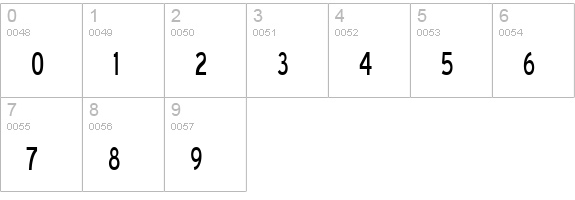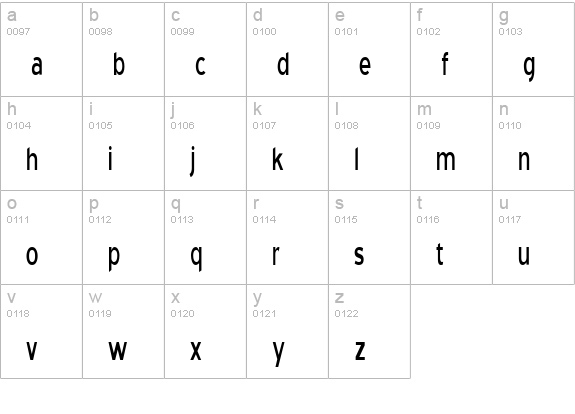
Blue Highway Condensed Font Details
Blue Highway Condensed is a distinctive, condensed-width variant in the Blue typeface family \xE2\x80\x94 well suited to design and typography projects.
Blue Highway Condensed is a sleek and modern sans-serif font that exudes professionalism and sophistication. With its clean lines and compact design, this typeface is perfect for any project that requires a touch of contemporary elegance. The condensed style of Blue Highway allows for efficient use of space without sacrificing readability, making it ideal for headlines, logos, and other display purposes. This versatile font is suitable for a wide range of design applications, from print materials to digital media. Best of all, Blue Highway Condensed is available for free download at FontsMarket.com. Whether you're a professional designer looking to enhance your projects or a casual user in need of a stylish font for personal use, Blue Highway Condensed offers quality and style without any cost. Download this font today and elevate your designs with its sophisticated charm.